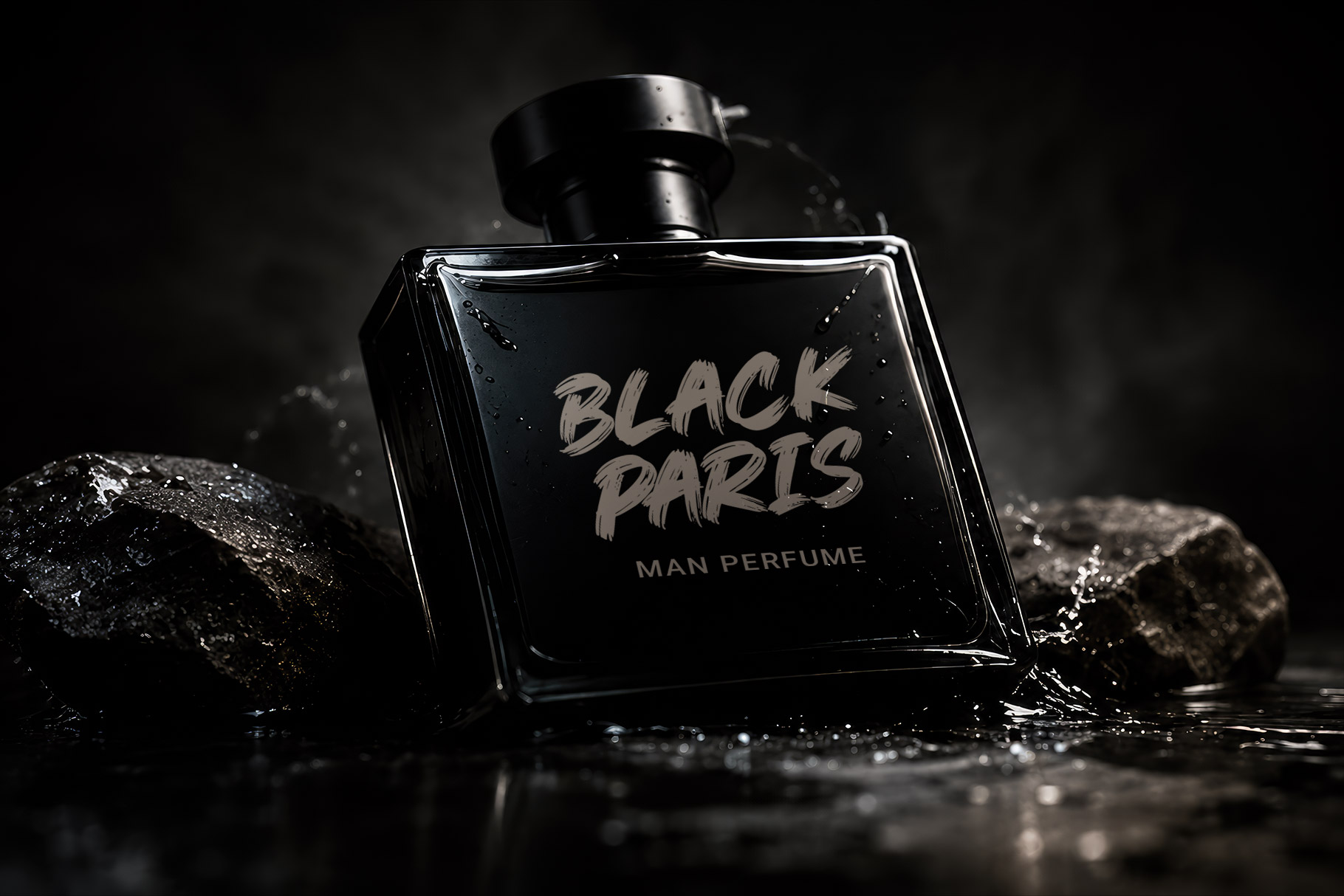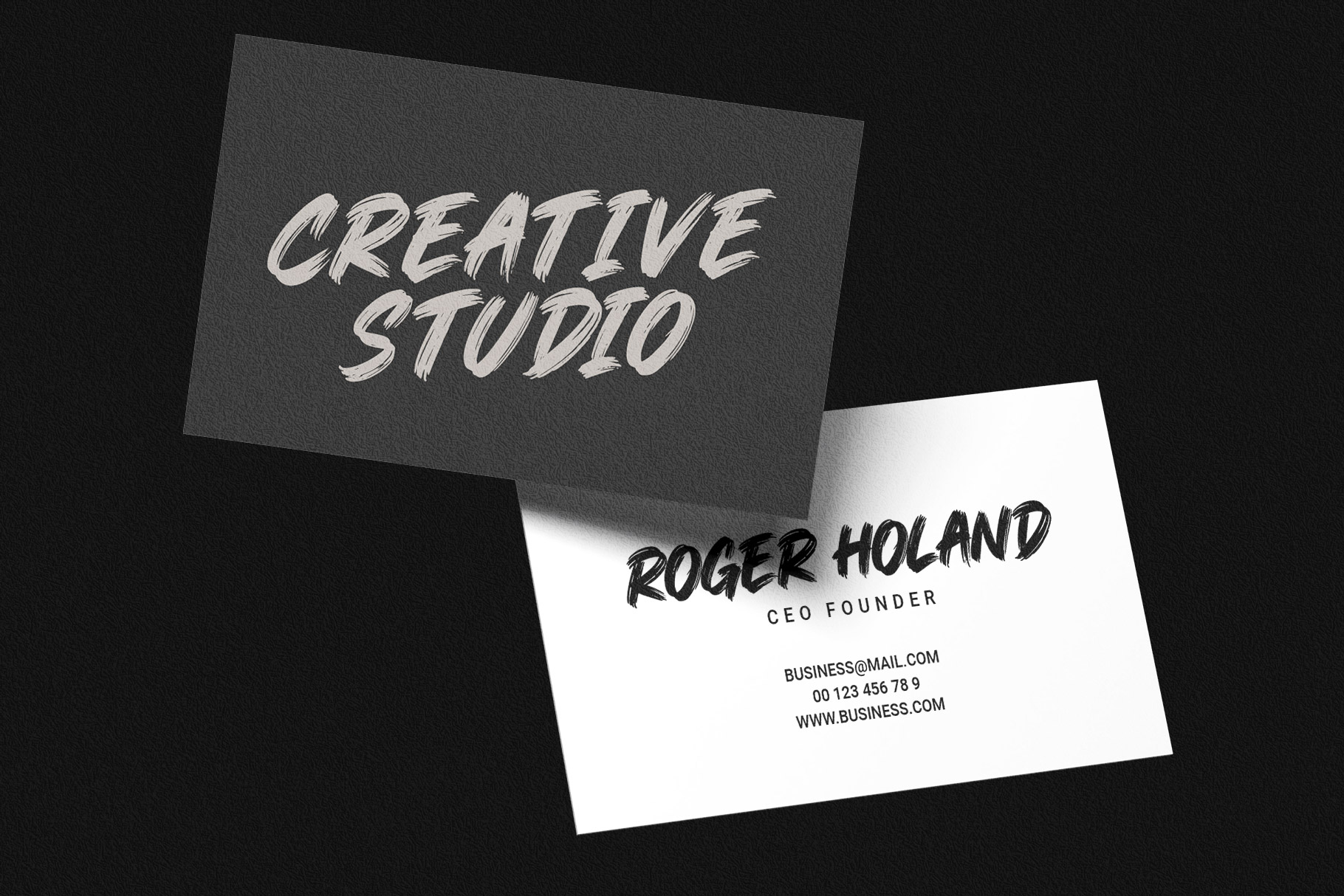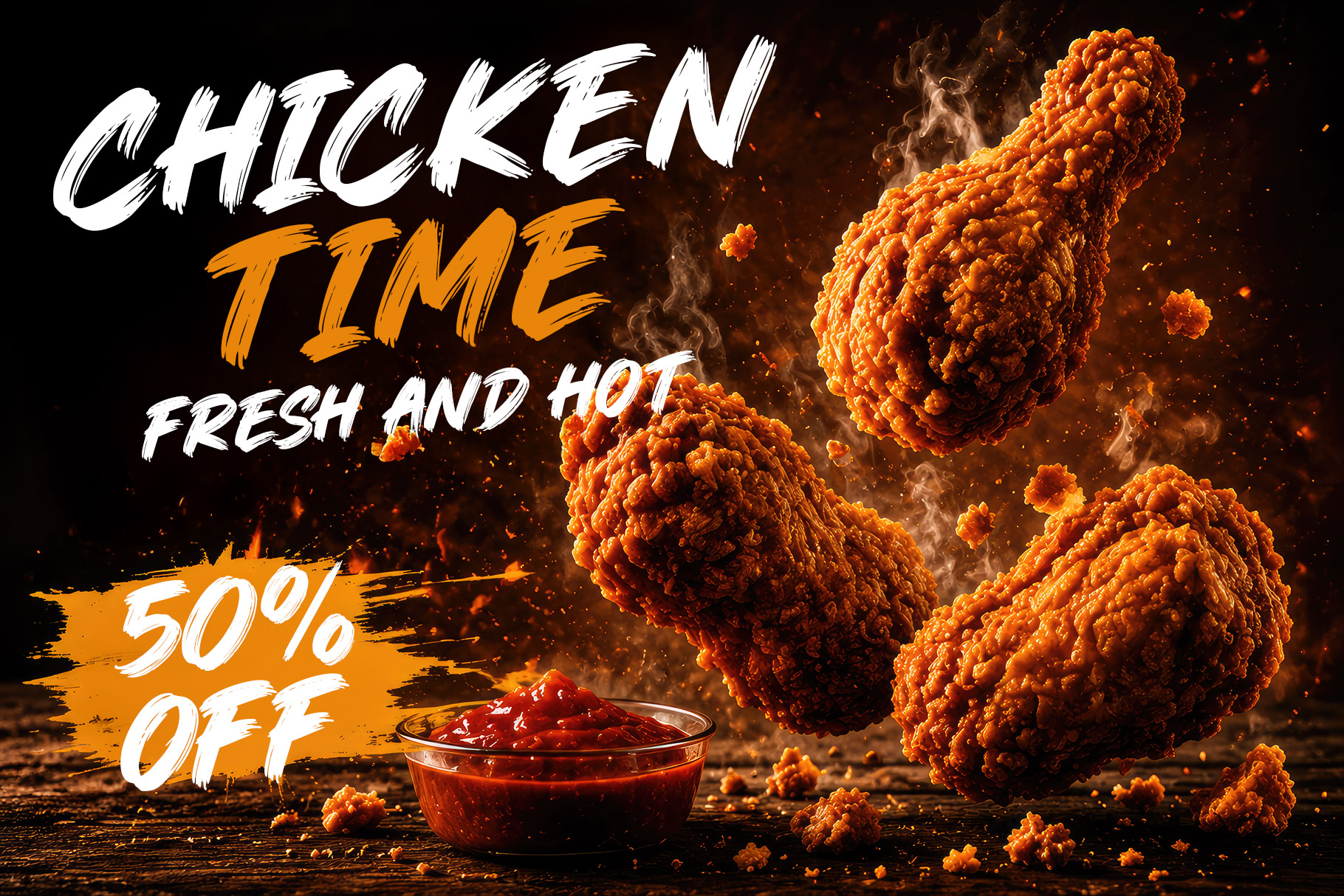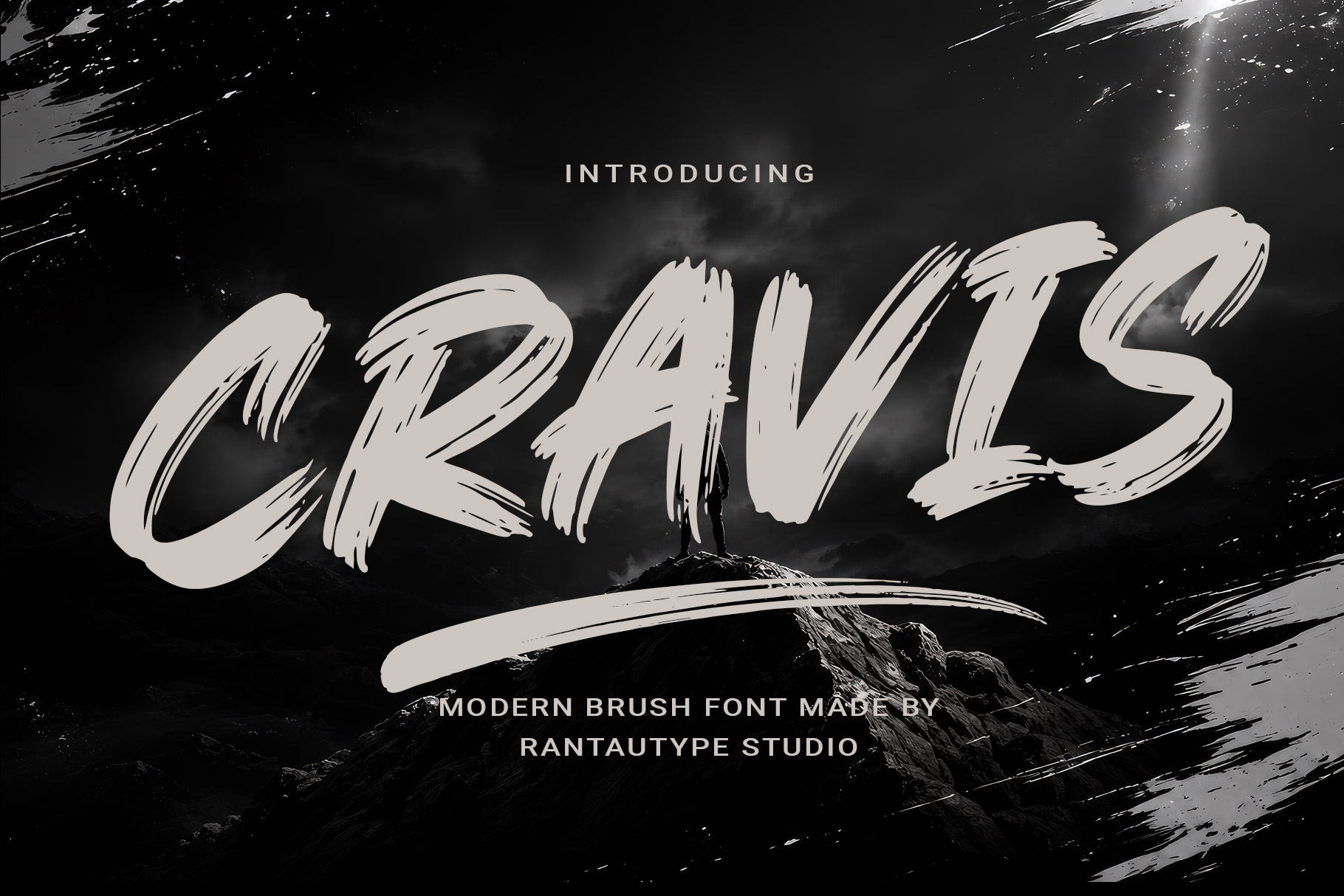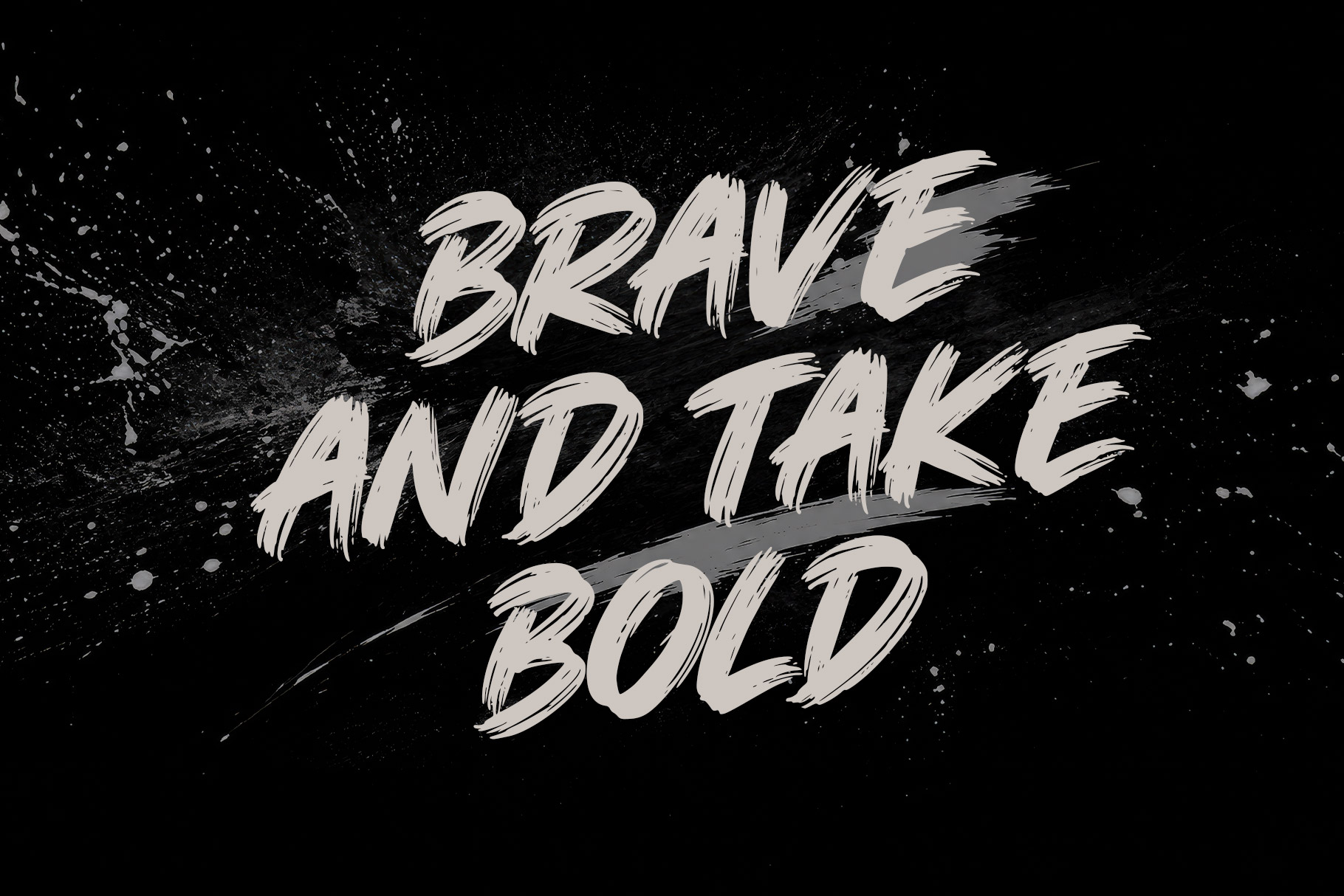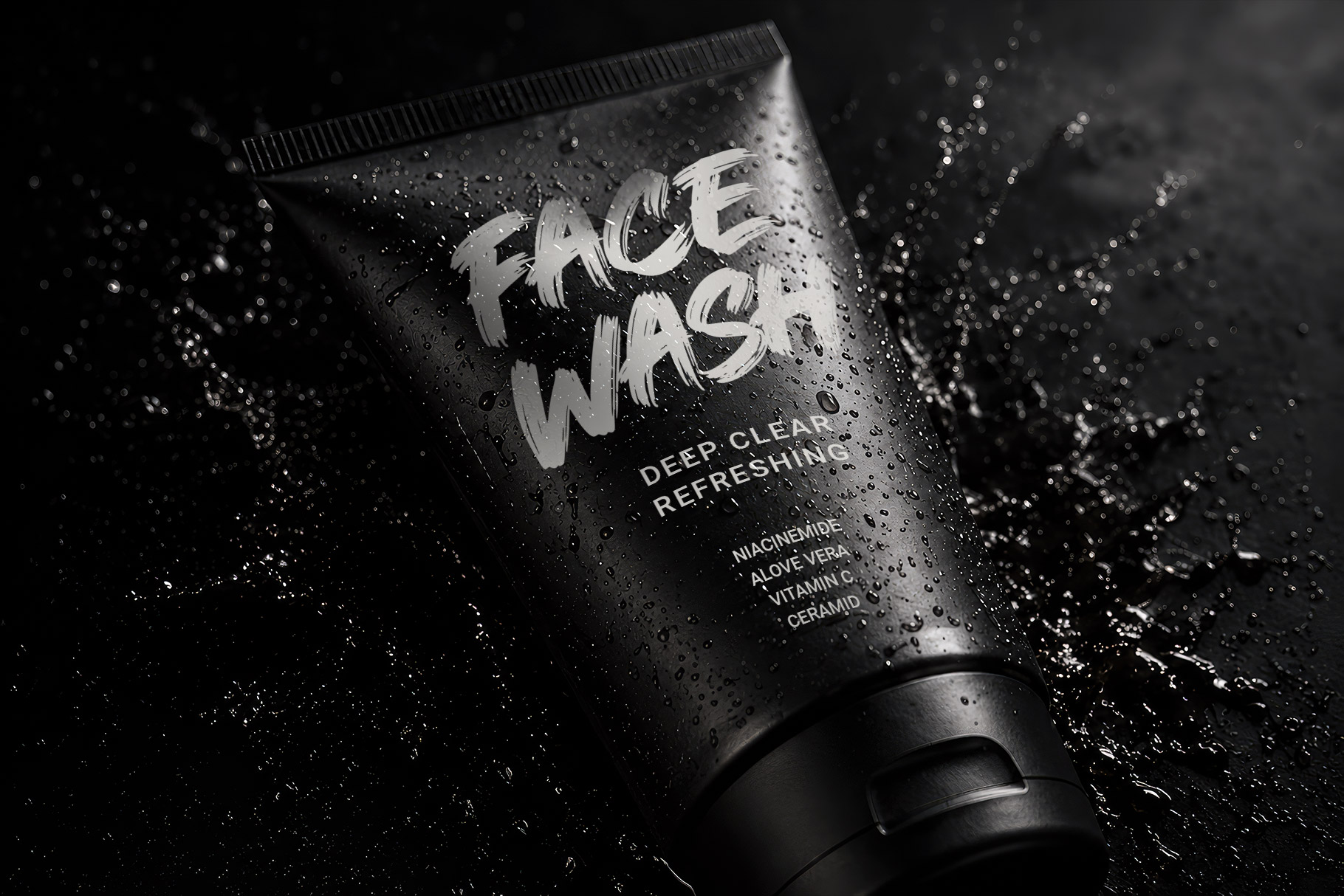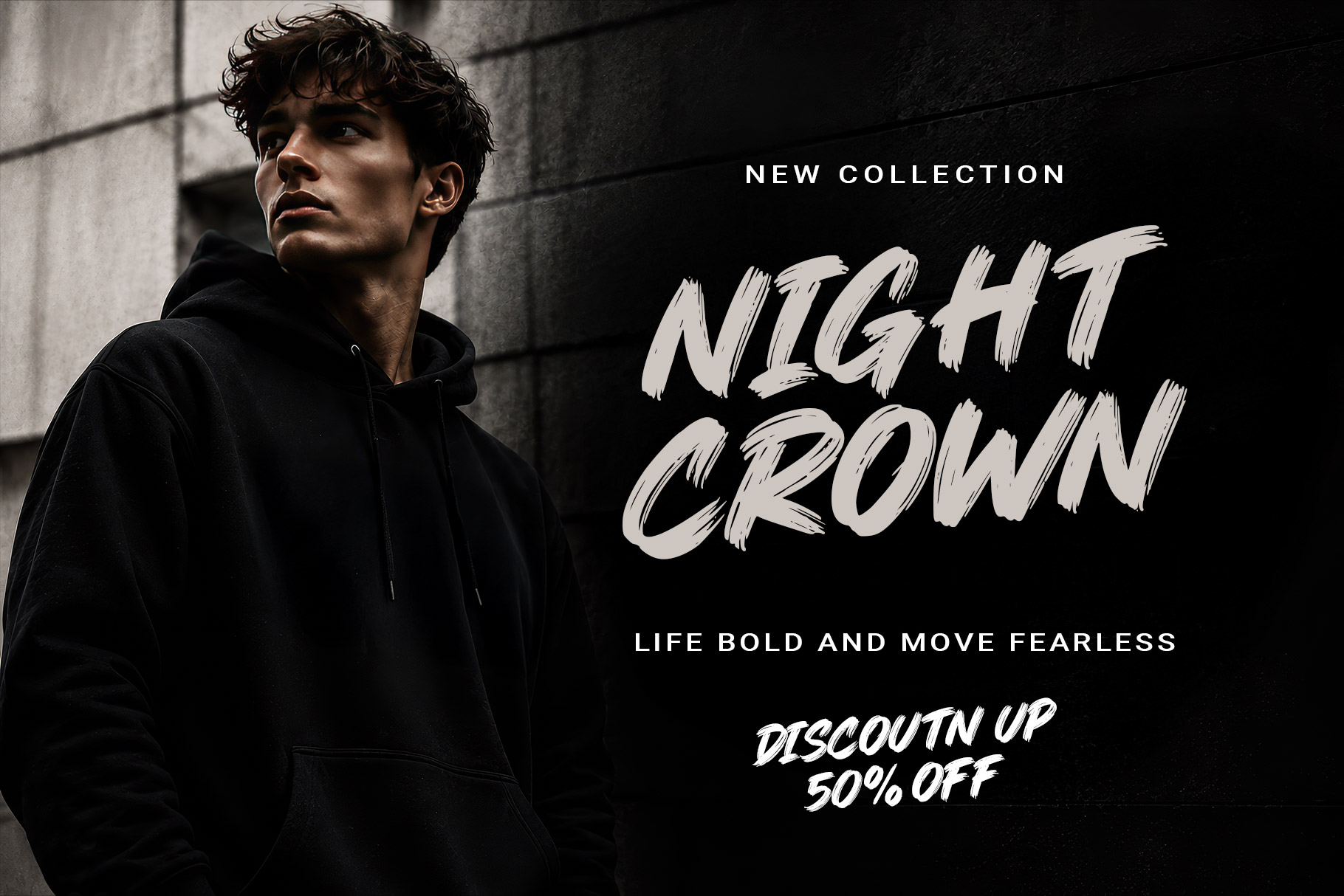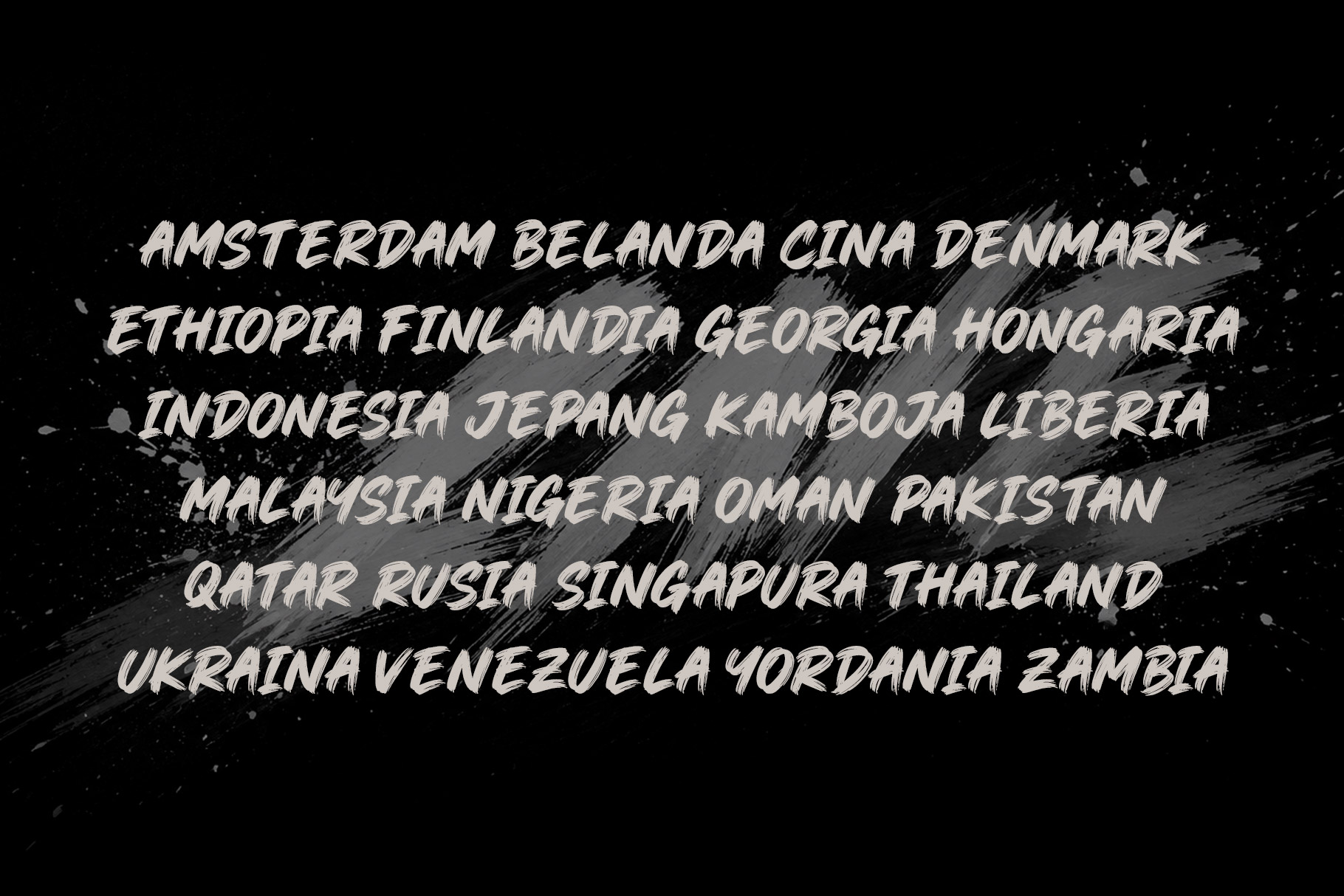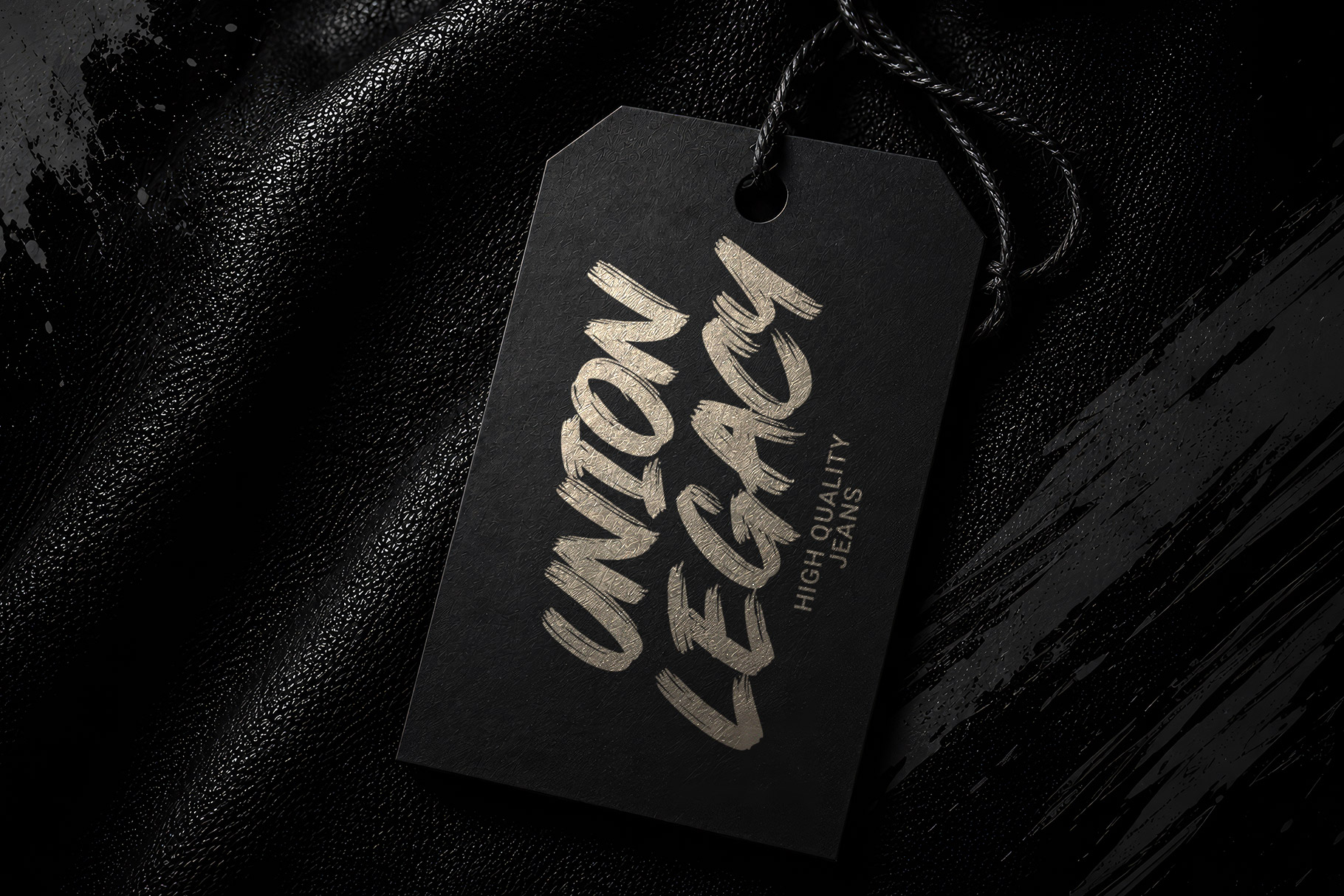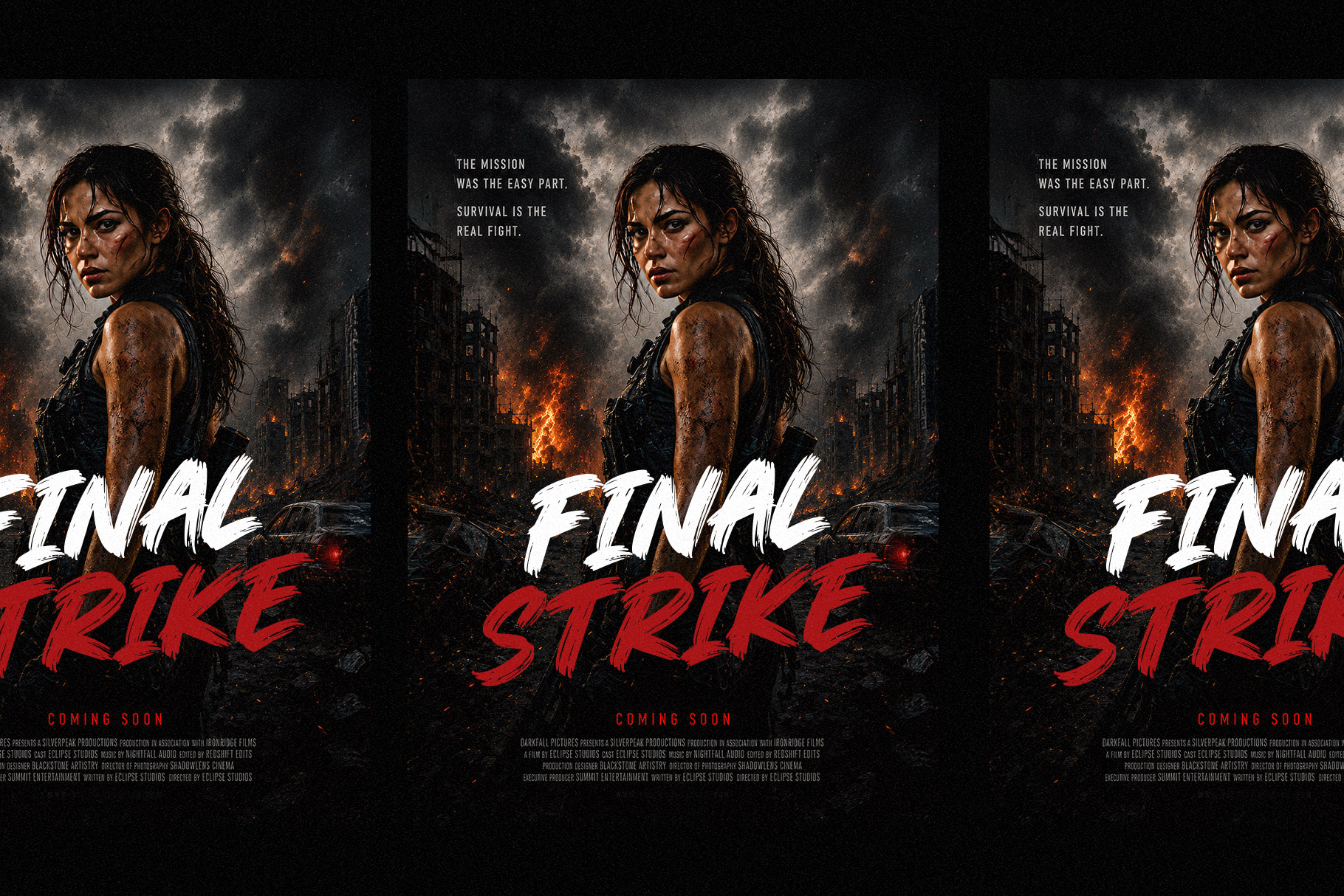
Cravis is modern brush font delivers a bold, energetic personality that instantly commands attention. Cravis is a perfectly choice for any creative endeavor, creating, modern, lifestyle design such as logotype, title, cover, branding, invitations, wedding designs, display and magazine, social media posts, advertisements, printed quotes, product packaging, corporate brand, product designs, labels, photography, watermarks, special events and any other project with casual touch.
Cravis Modern Brush Font